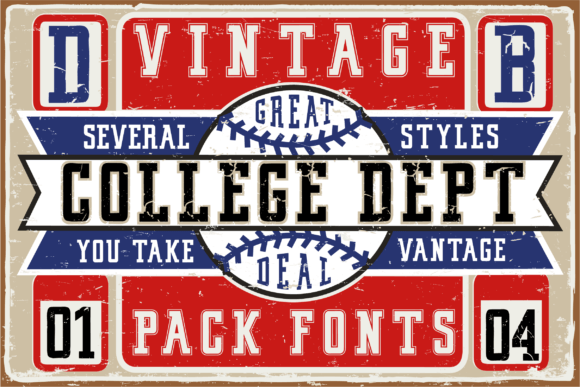
There’s just something about baseball fonts that hits differently. Maybe it’s the nostalgic script that reminds you of old-school jerseys, or those bold varsity letters that scream team pride. Either way, baseball-themed fonts have a charm all their own—and they’re not just for sports fans anymore.
Whether you're designing a logo for a little league team, creating custom merch, or just love that classic Americana vibe, baseball fonts can add that perfect touch of energy and style. In this guide, we’re diving into what makes these fonts so special, where to use them, and sharing our top picks to knock your next design out of the park.
Let’s play ball—with fonts!
Baseball fonts are a unique blend of style, tradition, and attitude. At their core, these fonts are inspired by the typography used on baseball jerseys, team logos, and sports memorabilia. You’ll often see two main styles pop up: script fonts with swooping swashes that mimic hand-lettered team names, and bold block fonts that bring a strong, athletic vibe—think scoreboard numbers or varsity jackets.
What makes them so special? It’s the mix of nostalgia and energy. Script baseball fonts often feel vintage and personal, like the hand-painted signs from old ballparks. Block styles, on the other hand, are all about power and team spirit. Put them together, and you get a design that’s instantly recognizable, full of motion, and bursting with personality.
These fonts aren’t just for sports projects either. Their playful yet bold nature makes them perfect for everything from t-shirt designs to event posters, and even logos for non-sporty brands that want to bring in a bit of classic Americana flair.
So, you’ve fallen in love with that classic baseball look—now what? The great thing about baseball fonts is how versatile they are. Sure, they’re a home run for sports designs, but they can shine way beyond the field too.
Here are some all-star ways to use baseball fonts:
Team Logos and Jerseys: Whether it’s for a school team, a local league, or even a fantasy league, nothing screams “team spirit” like a bold baseball font across a jersey or cap.
Custom Merchandise: T-shirts, mugs, hats, stickers—you name it. Baseball fonts add that retro-cool vibe that people love, especially for themed apparel or gifts.
Event Promotions: Hosting a baseball game, fundraiser, or sports-themed party? These fonts are perfect for posters, flyers, and banners that grab attention.
Digital Designs: Think YouTube thumbnails, sports blog headers, game UIs, or even social media graphics. Baseball fonts bring that energetic, vintage flair that makes content pop.
Print-on-Demand Projects: Running a shop on Redbubble or Zazzle? Baseball fonts are super popular for niche merch, especially when paired with funny or nostalgic phrases.
Basically, if your design needs a touch of energy, tradition, or good ol’ team pride, a baseball font might be exactly what you need.
Ready to build your all-star font lineup? We’ve rounded up 20 of the best baseball fonts that bring the perfect mix of retro charm, athletic edge, and design versatility. Whether you’re looking for something bold and blocky or script-style with that classic jersey feel, there’s something here for every kind of project.
Chicago Shift is a versatile sports-themed font offering both a vintage and modern aesthetic. It features a variety of glyph variations (including alternates, ligatures, and stylistic sets) accessible through OpenType-supporting software. This allows for a high level of design customization for headlines, logos, apparel, branding, and other design applications.
Headster is a bold script typeface inspired by vintage label designs. It offers a unique layered system with five total fonts (Regular, Extrude, Shadow, Half Engraved, Full Engraved). This allows for creative mixing and matching to achieve the perfect look for your project.
Courage Union is a slab serif typeface designed to evoke a vintage athletic aesthetic. It comes in six weight variations (regular, rough, halftone, outline rough, and outline halftone) offering a variety of design options. The carefully crafted details make it suitable for logos, social media content, and sports-related projects.
Norches is a bold and powerful display font designed to capture the energy of sports. It features sharp edges and a dynamic structure, perfect for grabbing attention in headlines, logos, posters, and other design projects with a sporty theme.
Thunder Mage is a unique and bold display font designed to make a statement. Its creative design offers a chance to elevate any project and bring ideas to life.
The Milestone Font Duo is a combination of two fonts designed to evoke a vintage baseball aesthetic. The script font features a hand-drawn, brush-like style reminiscent of old-time signage and lettering. The ornament font provides additional decorative elements for creating unique logos, labels, and other design projects.